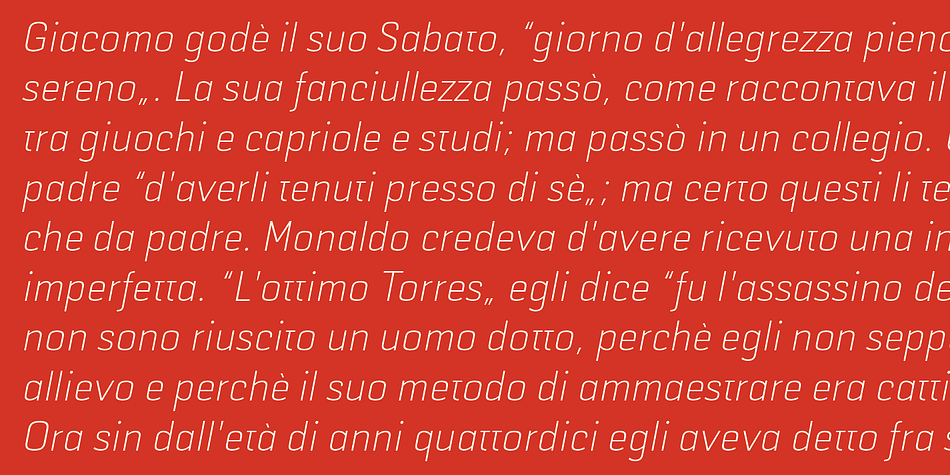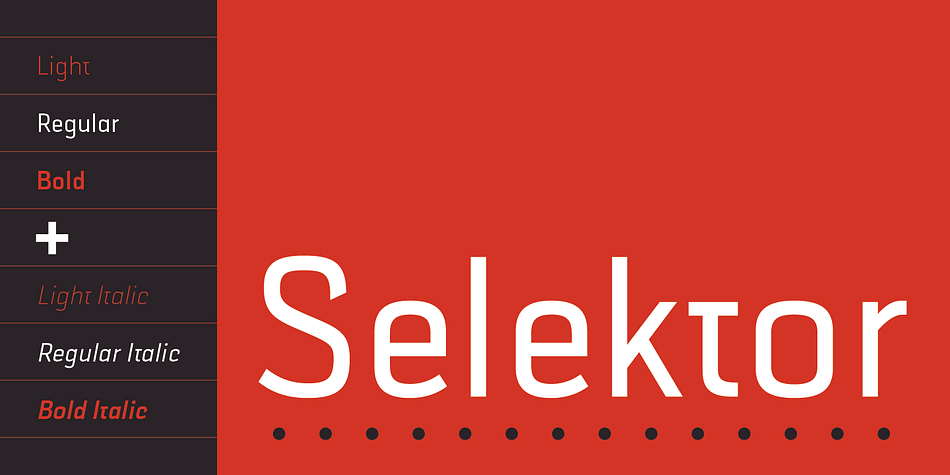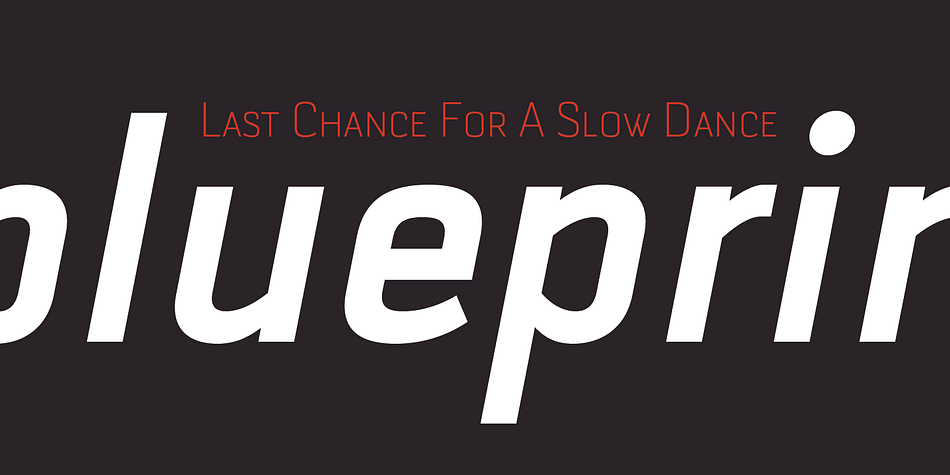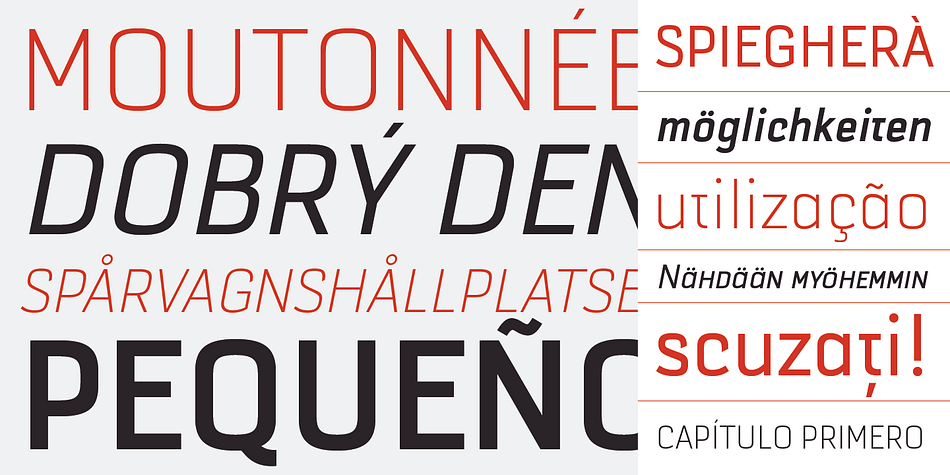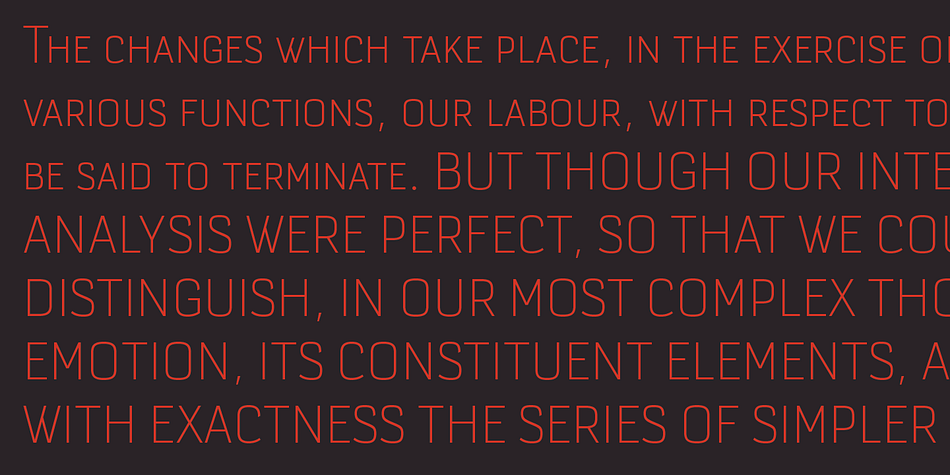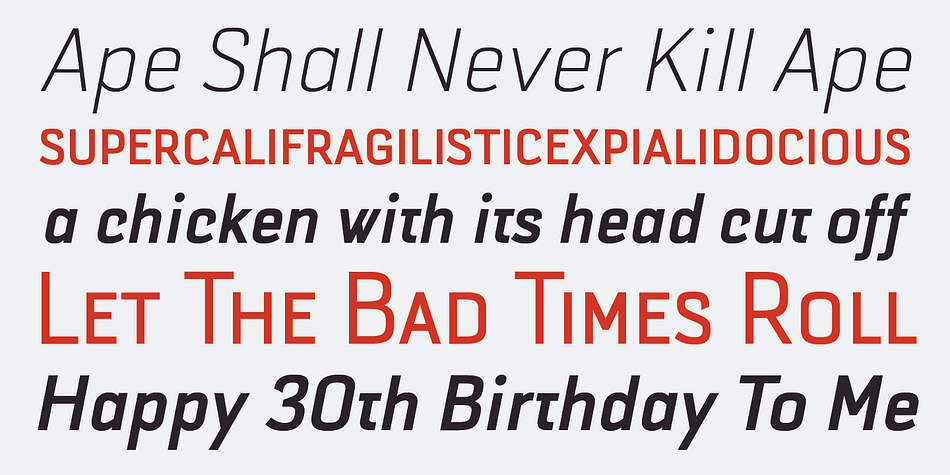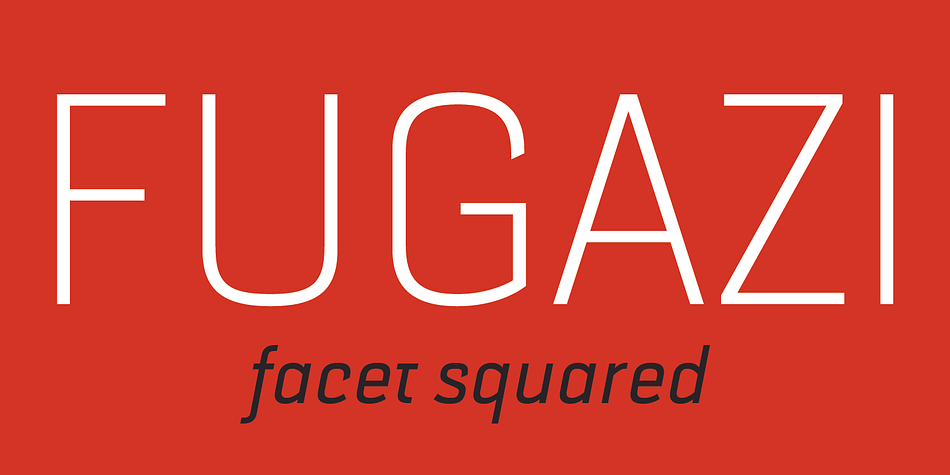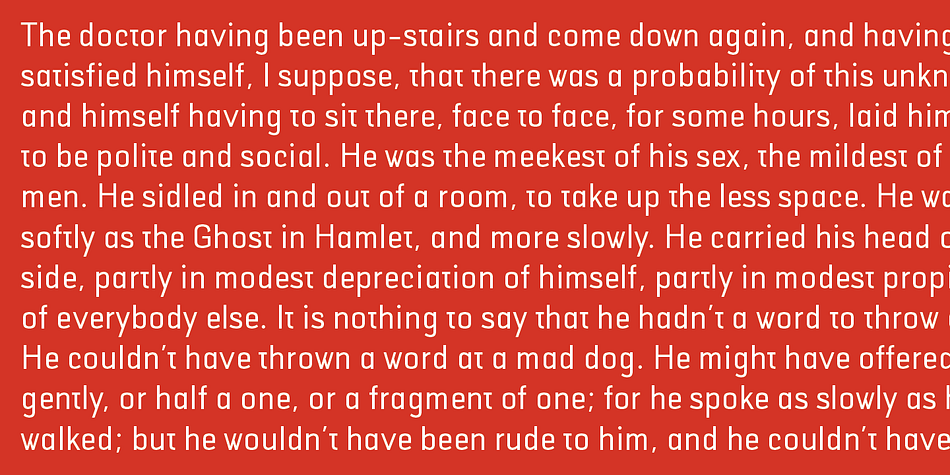
Selektor is a sans serif font family. This typeface has six styles and was published by Tour de Force Font Foundry.
Selektor is a small font family characterized as geometrical sans. Inspired and after that designed with charm of technical letters, it contains a few letters with specific endings that gives Selektor a peculiar impression. Global overview of Selektor says it’s a neutral, corporate, stable, well balanced font family, but not cold and heartless to leave readers without remembrance on its characteristics.
It is fully applicable in all kinds of publications, from long texts in paragraphs to titles and product names.
Comes with 3 weights – Light, Regular and Bold and matching Italics.
All family members include Small Caps and Fractions as additional OpenType features.